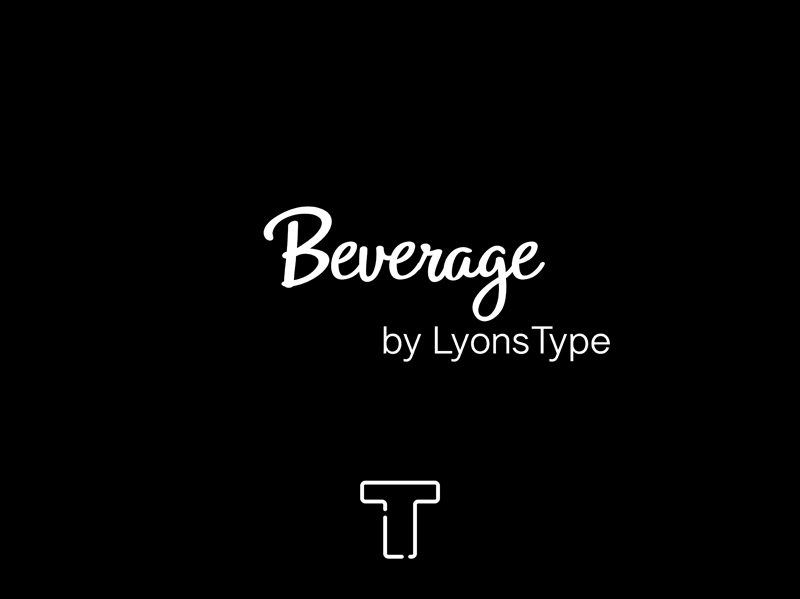
Free download LT Beverage Font
Font name: | LT Beverage |
Author: | LyonsType |
Note by LyonsType | |
A joyful script typeface that you could enjoy with your favorite beverage. Any questions? Contact me at lyonstype@pm.me |